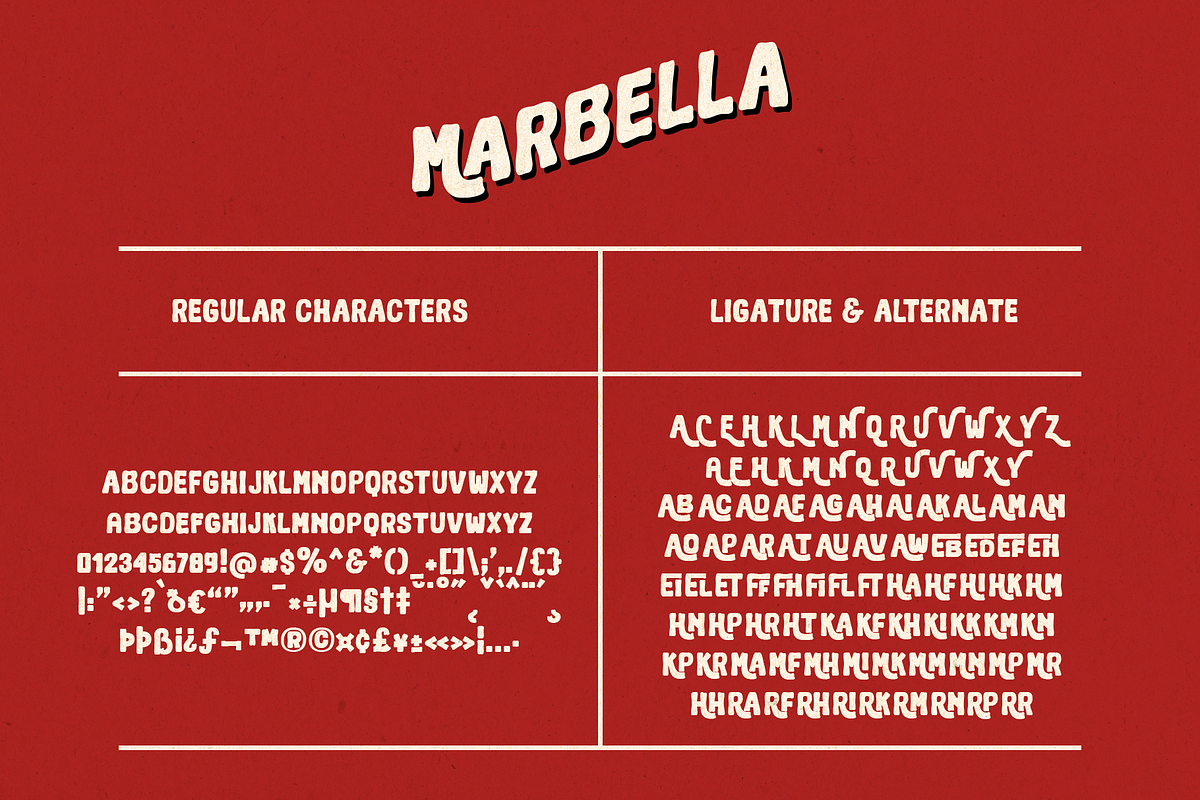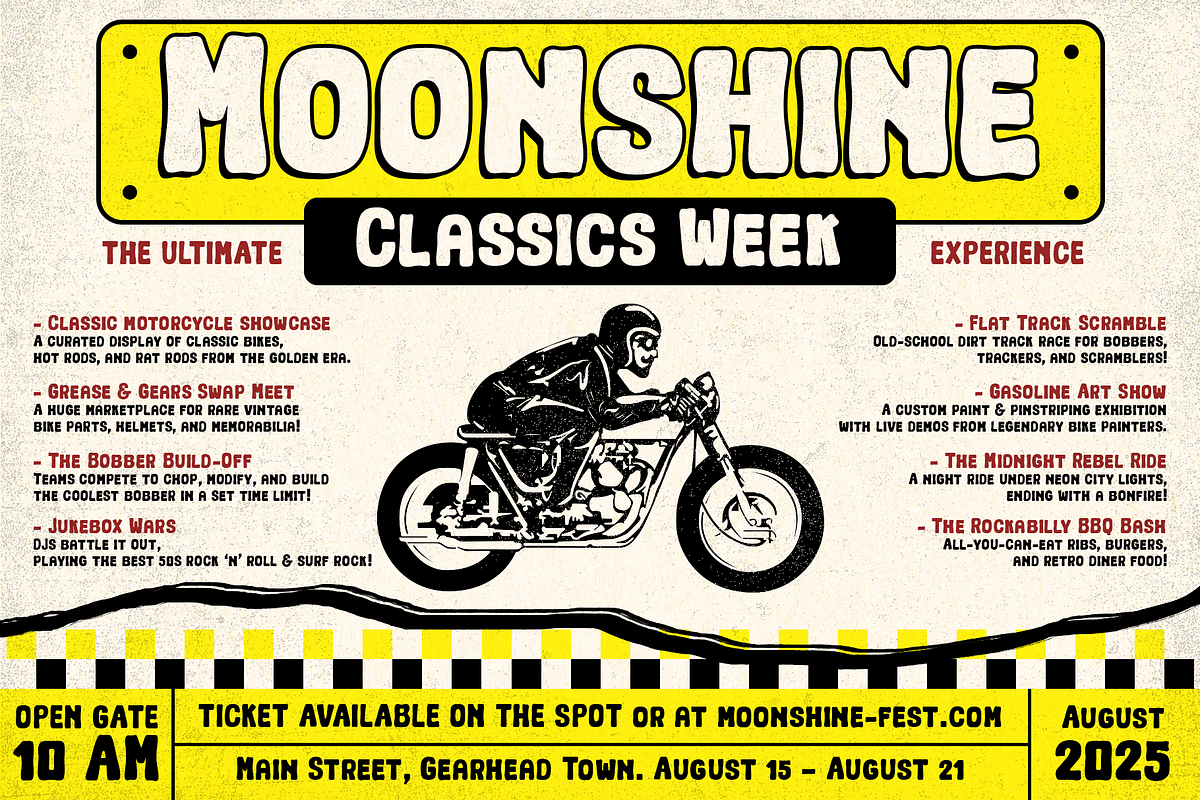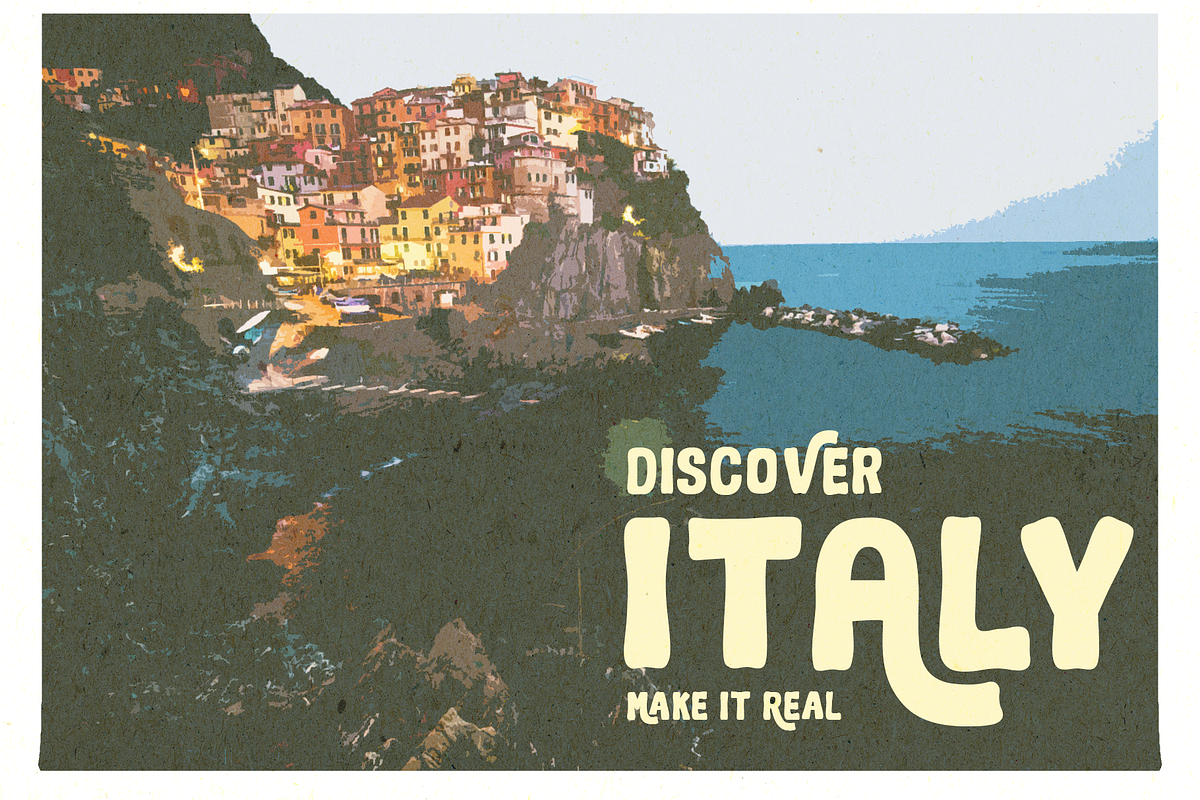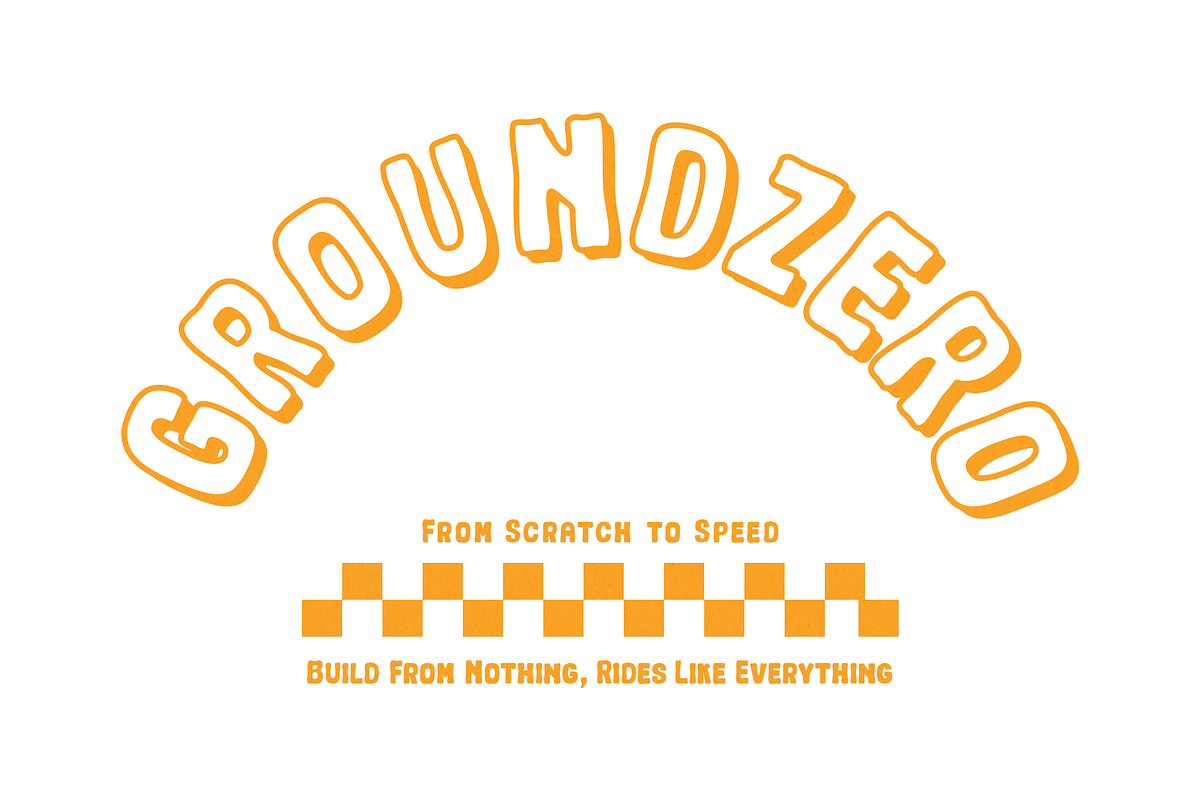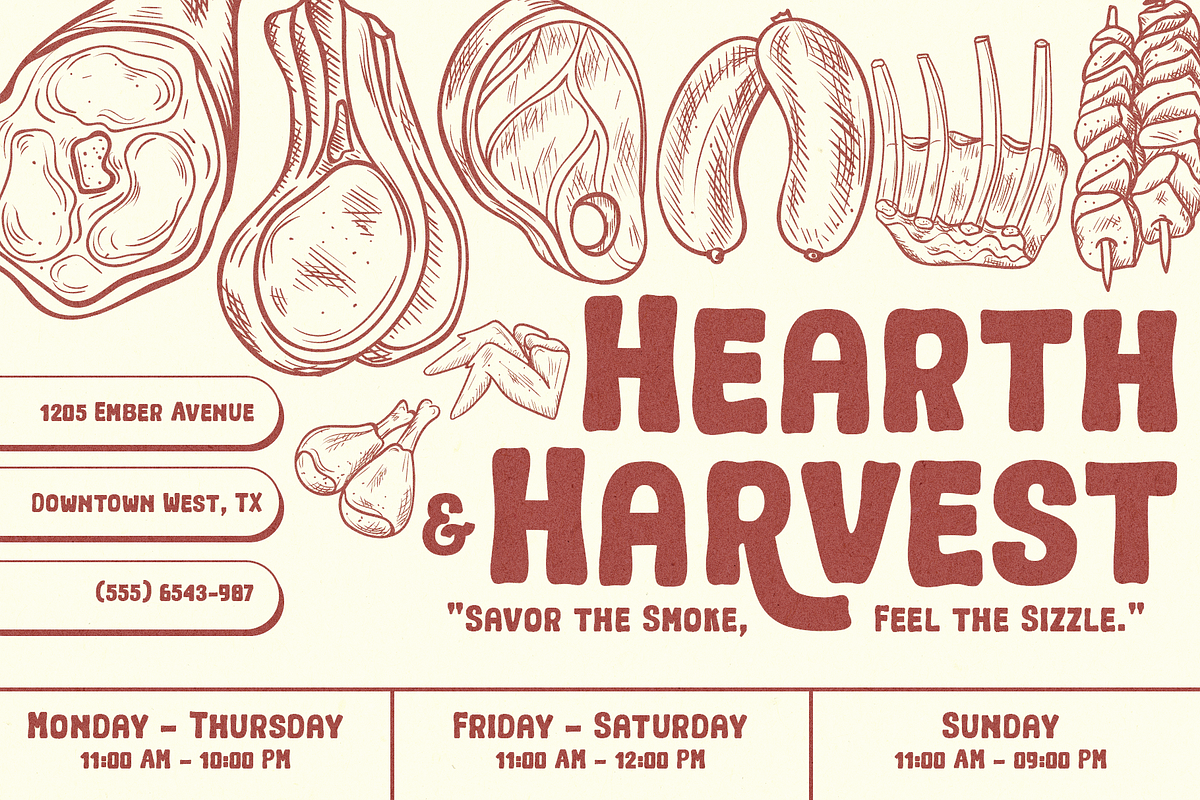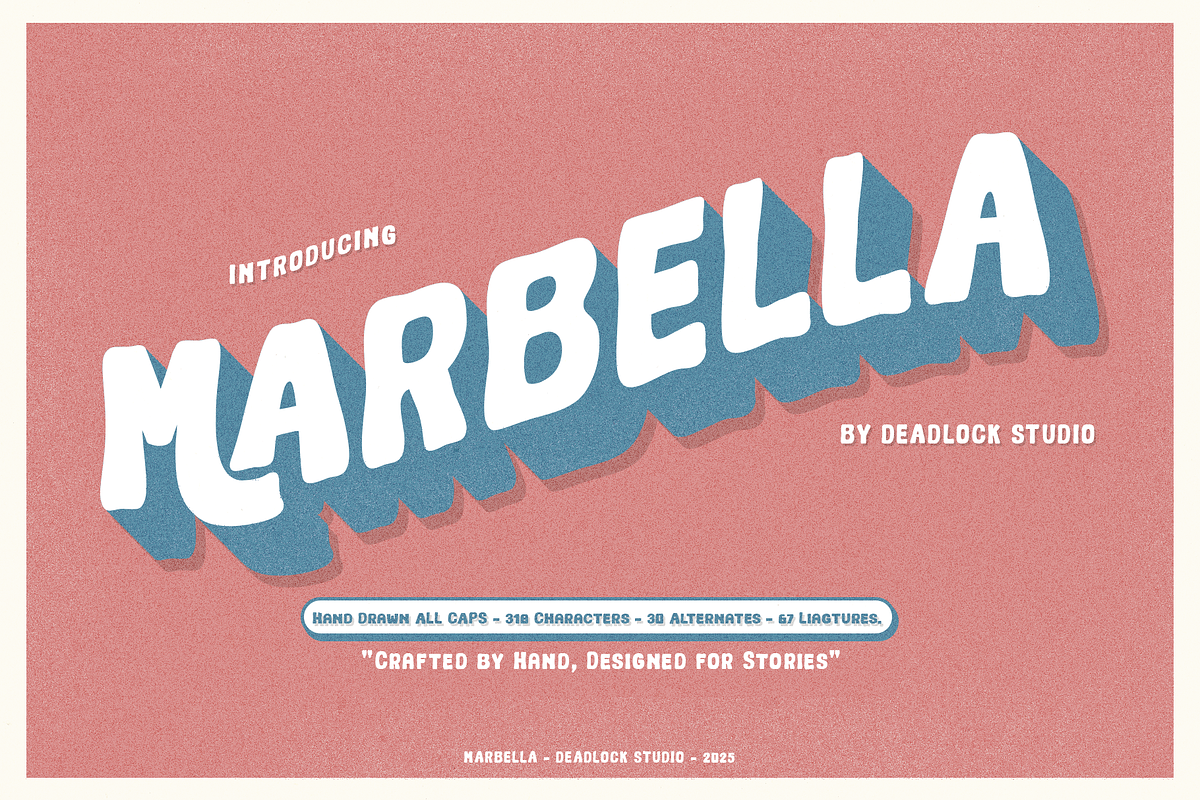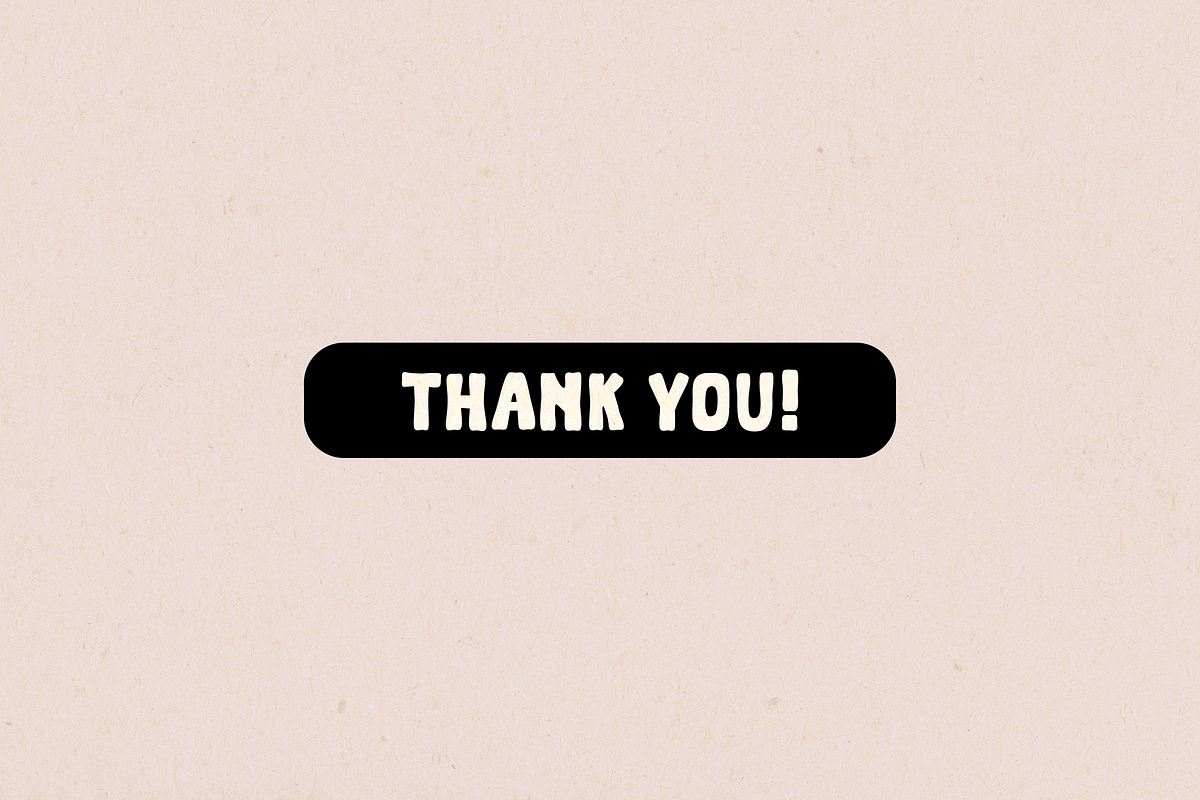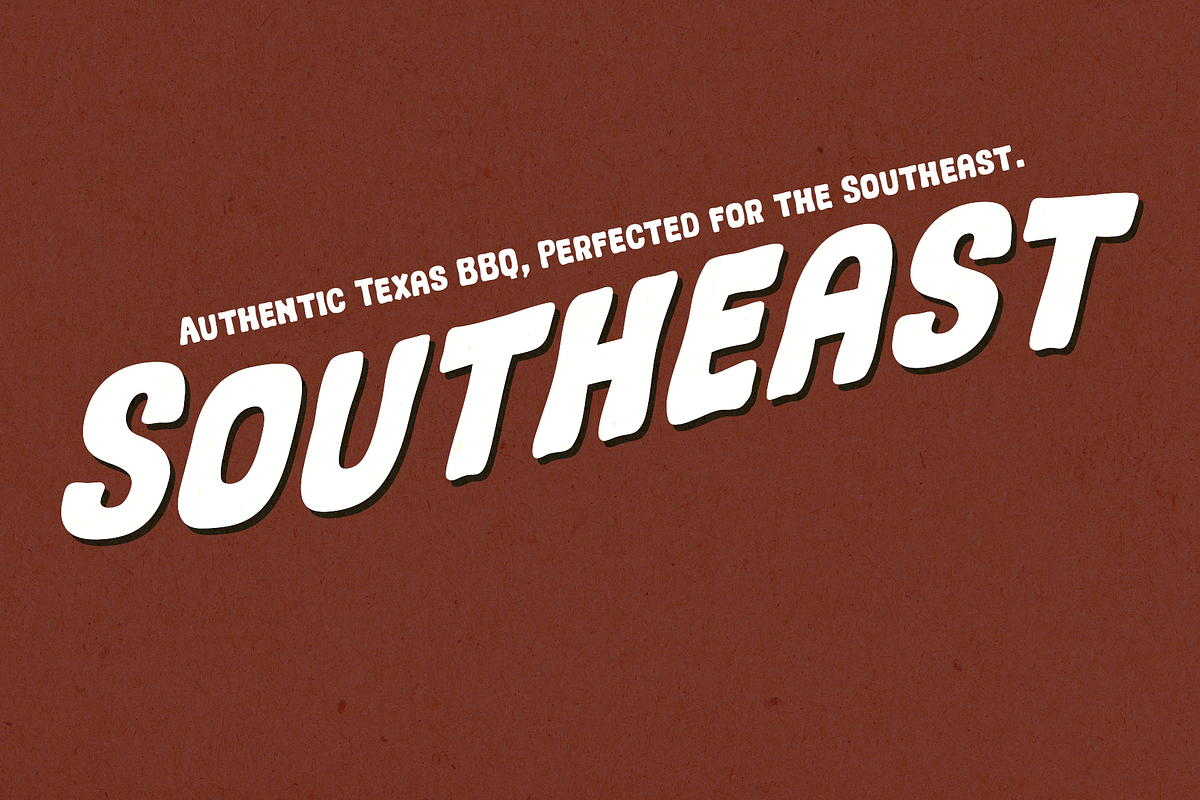
Marbella
Introducing Marbella, a hand-drawn vintage typeface crafted for designers who love the bold, rugged, and retro aesthetic. Inspired by mid-century race posters, hot rod graphics, and vintage motorcycle festival signage, Marbella brings authentic nostalgia with a modern edge.
With 318 characters, including 97 alternates and ligatures, this font delivers versatility and unique custom lettering for your projects. Whether you’re creating retro motor festival posters, speedway banners, garage signage, or custom vintage branding, Marbella will add timeless personality and handcrafted charm to your designs.
- Vintage Posters
- Hot Rod & Custom Garage Logos
- Retro Merch & Apparel
- Old-School Sign Painting Styles
Marbella is designed for retro enthusiasts who crave the gritty, dynamic look of classic typography.